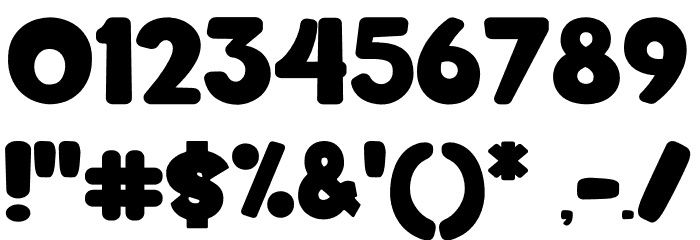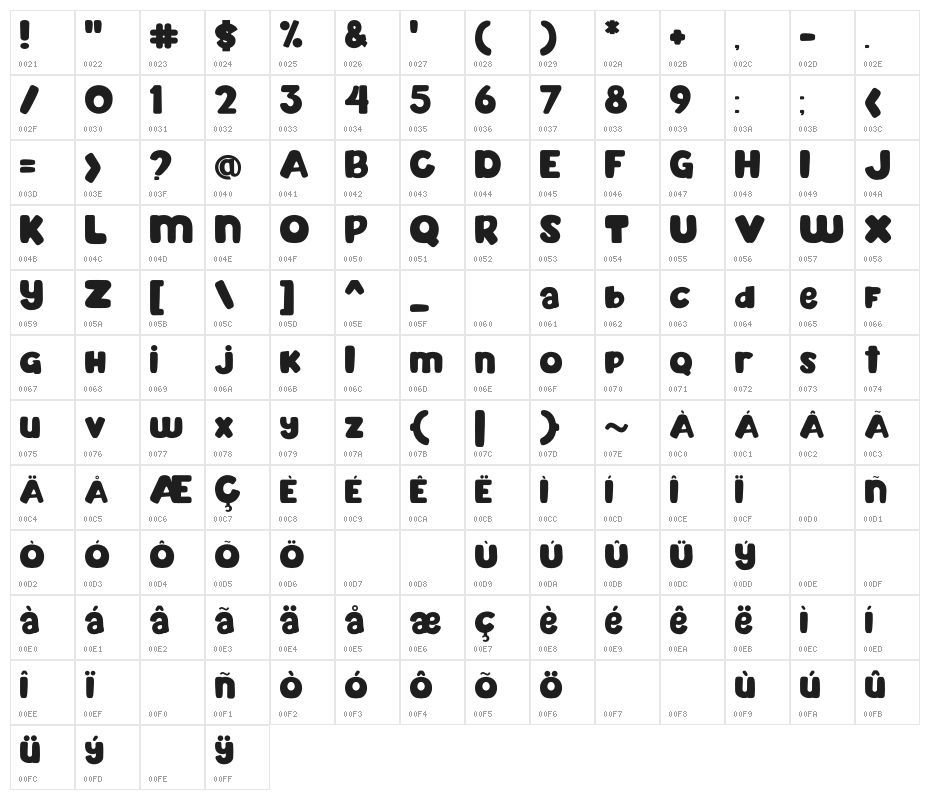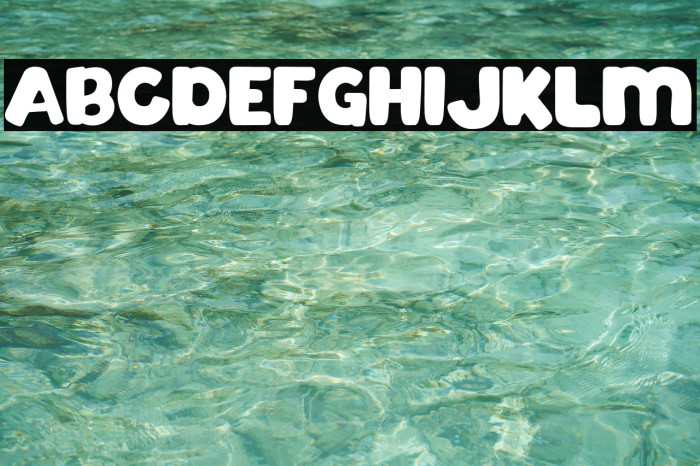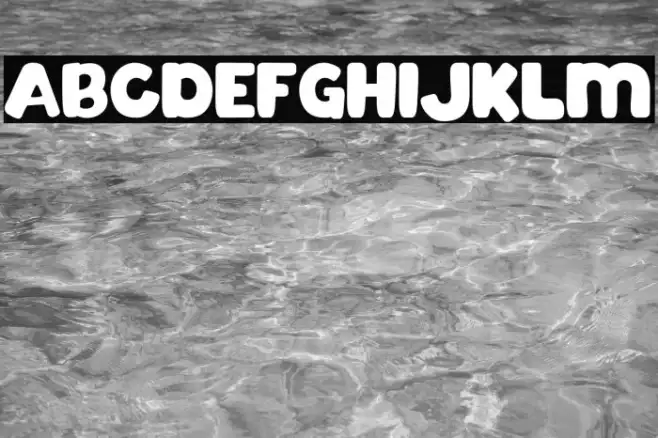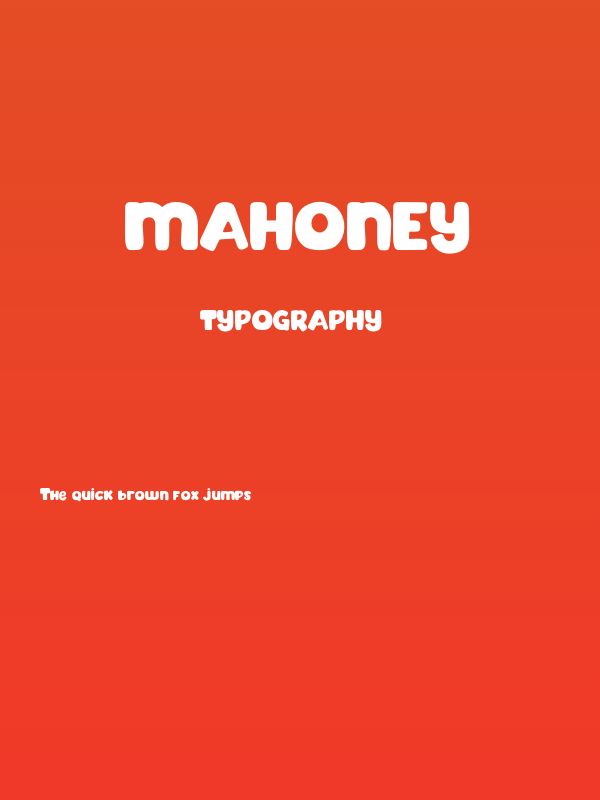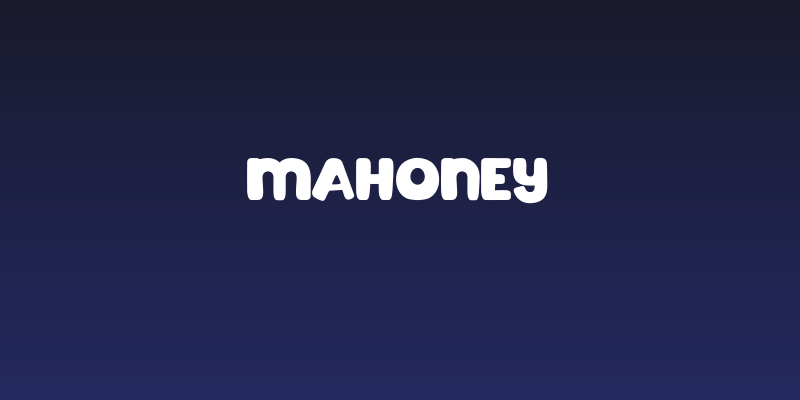
Mahoney Font
Mahoney Description
This font features a bold and playful design with rounded edges and a chunky appearance. The characters are uniformly thick, giving a sense of consistency and balance. The overall look is friendly and approachable, making it suitable for informal and fun projects. The letters are well-spaced, ensuring readability even at smaller sizes. The numbers and special characters maintain the same playful style, contributing to a cohesive visual identity.
| Proposed Projects | Ideal for children's books, playful branding, posters, and social media graphics. |